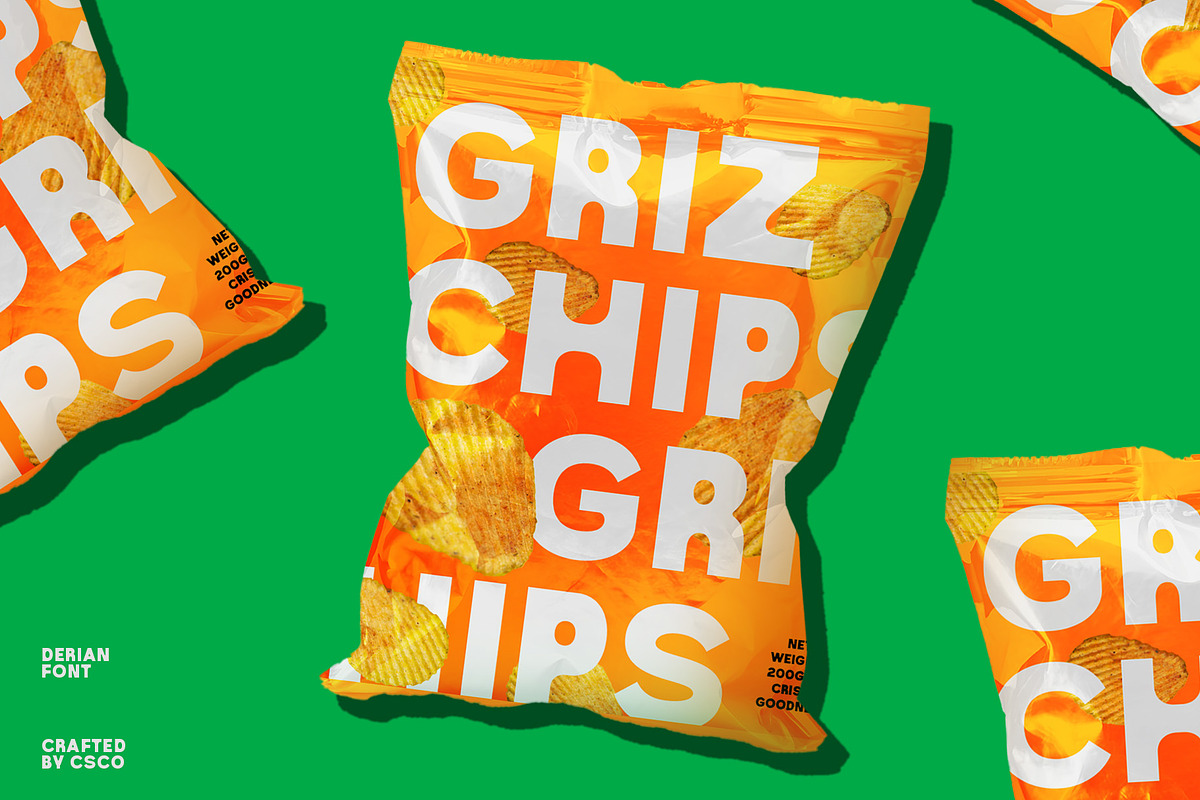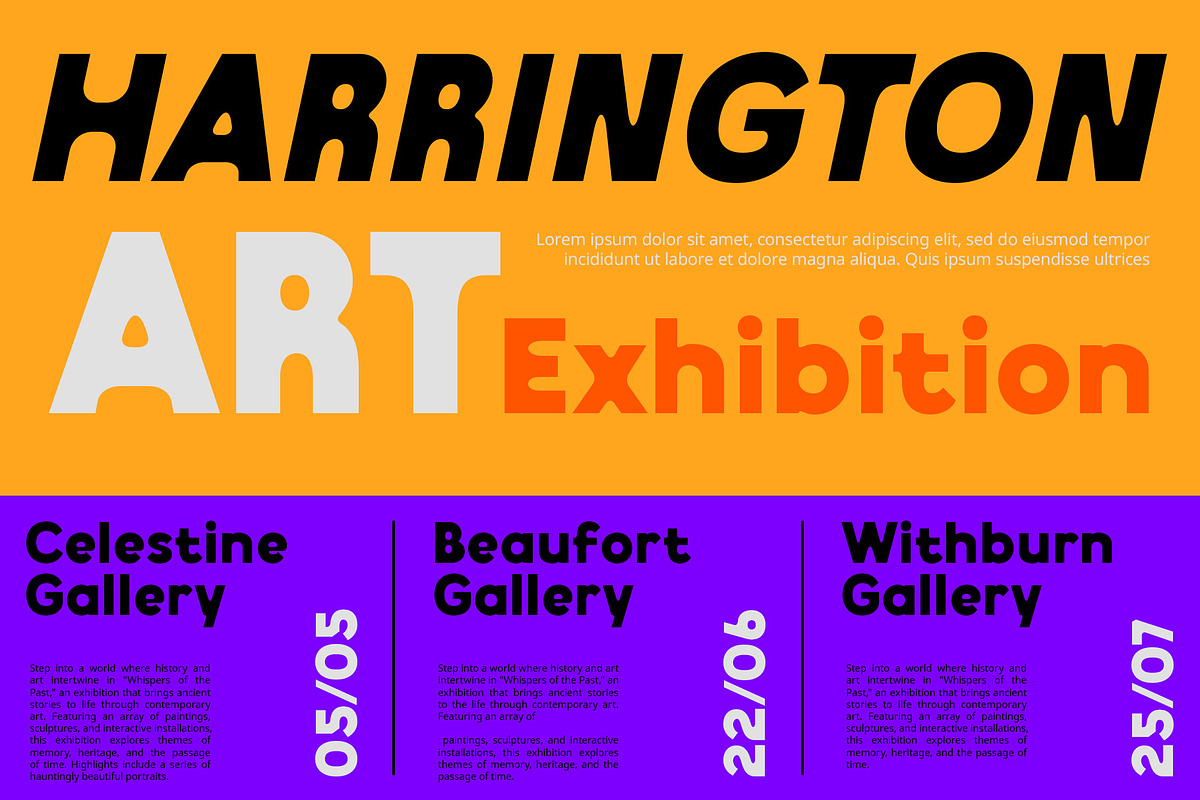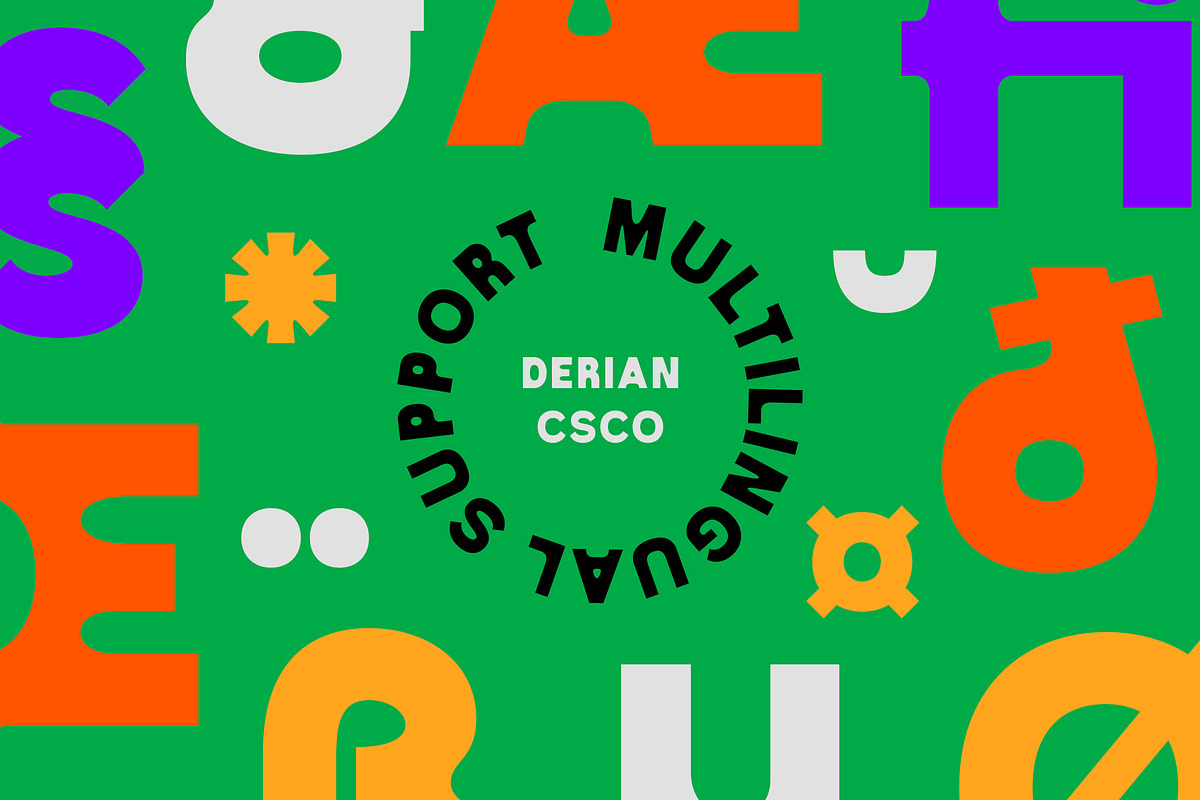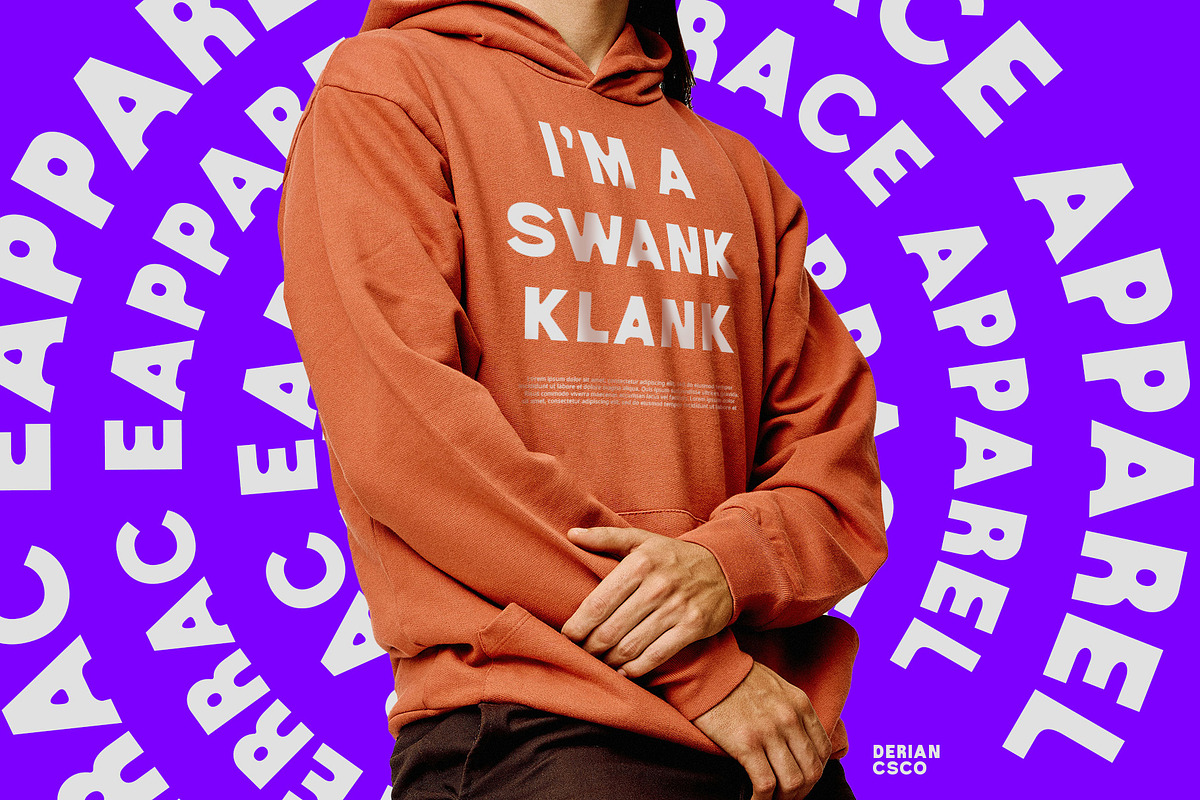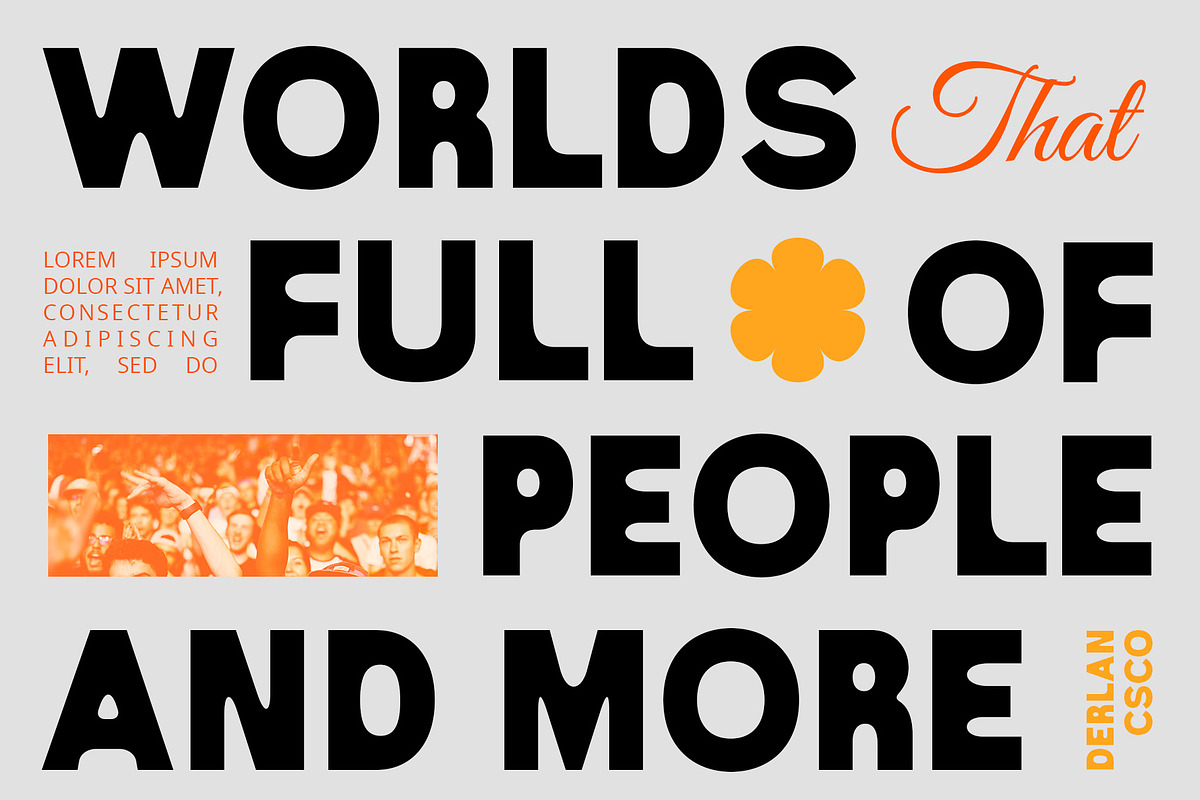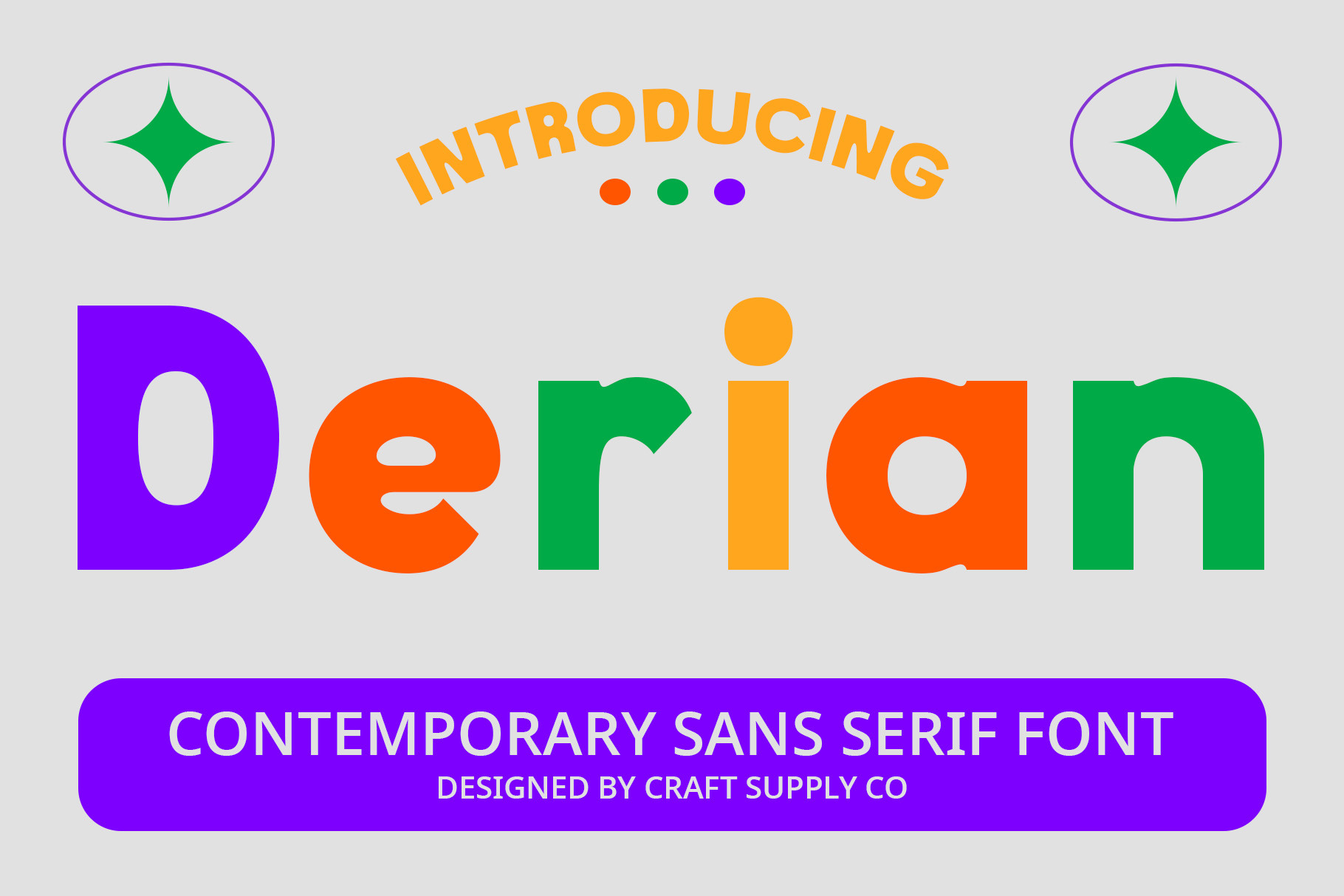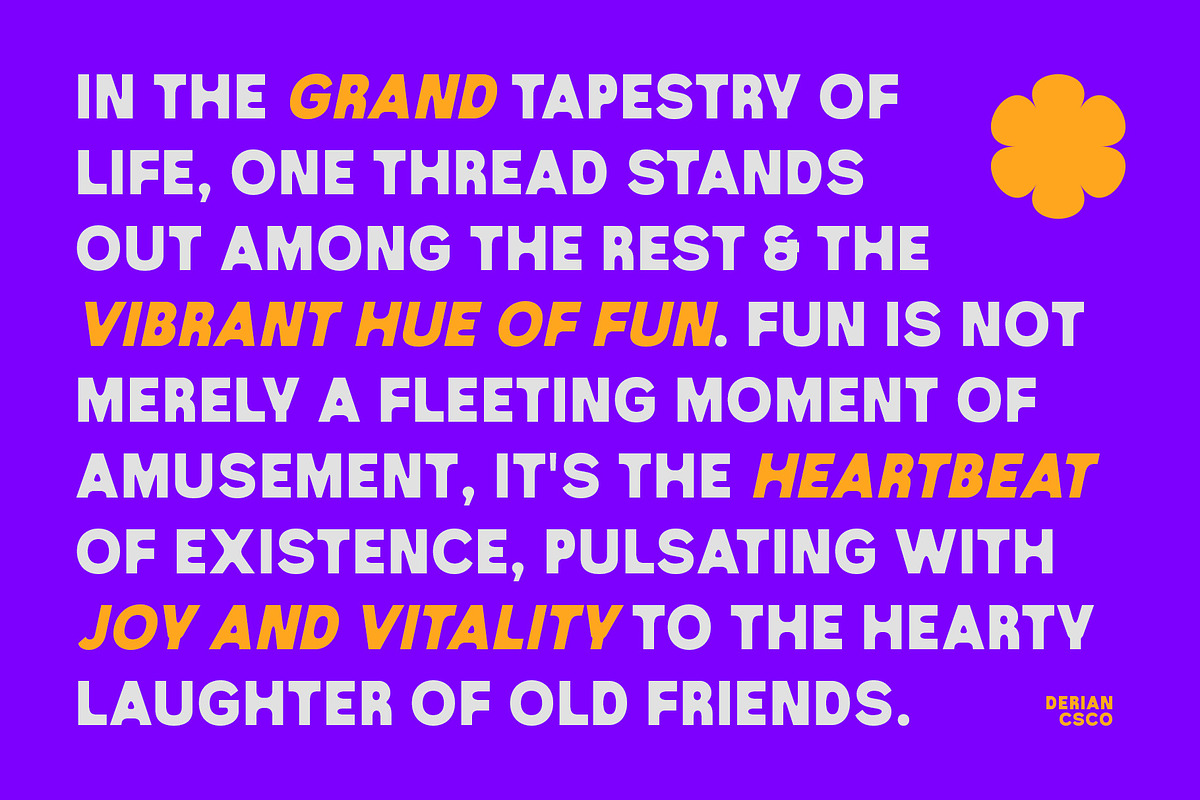
Derian – Contemporary Font
Derian: Where Modernity Reigns
Contemporary Sans
Derian is a sans serif font with a contemporary feel, suitable for various design applications. Its clean lines and modern design make it ideal for a wide range of projects, from branding to digital media.
Modern Sans Serif with Contemporary Feel
With its sharp lines and sleek style, Derian offers a fresh take on traditional sans serif fonts. The contemporary feel creates a sophisticated and professional look, perfect for corporate communications, logos, and more.
Perfect for Various Design Applications
Whether you’re designing a website or creating a poster, Derian is sure to make an impression. Its modern style and versatile nature make it suitable for a variety of applications, from headlines to body text.
Versatile and Easy to Use
Despite its distinctive appearance, Derian is versatile and easy to use. The font works well in both large and small sizes, making it suitable for a variety of projects. With its blend of modern design and contemporary feel, Derian adds a touch of sophistication to any design.